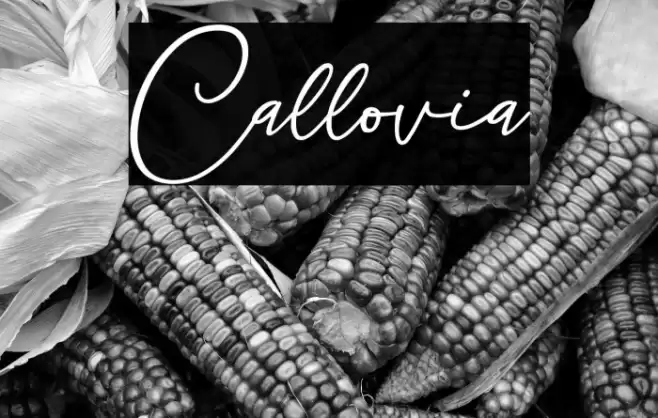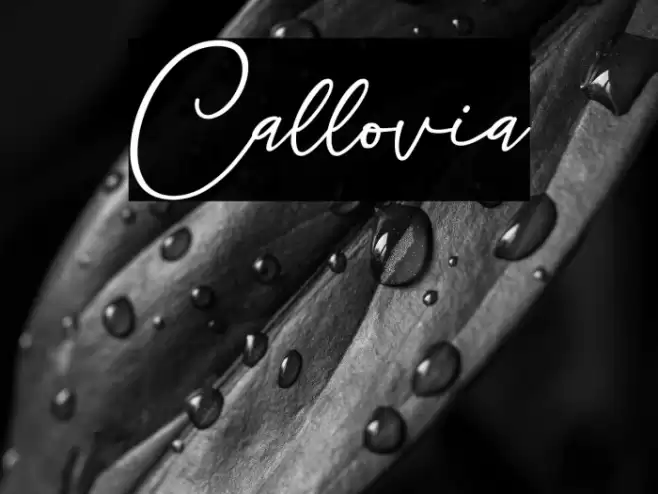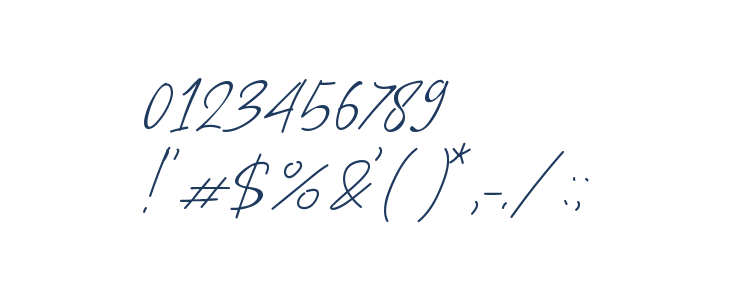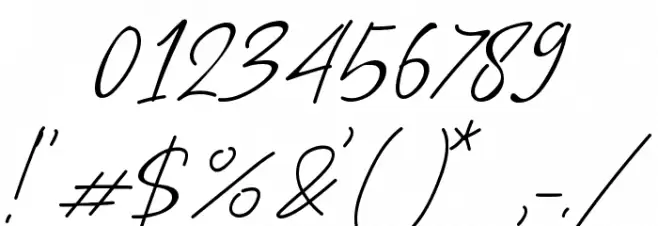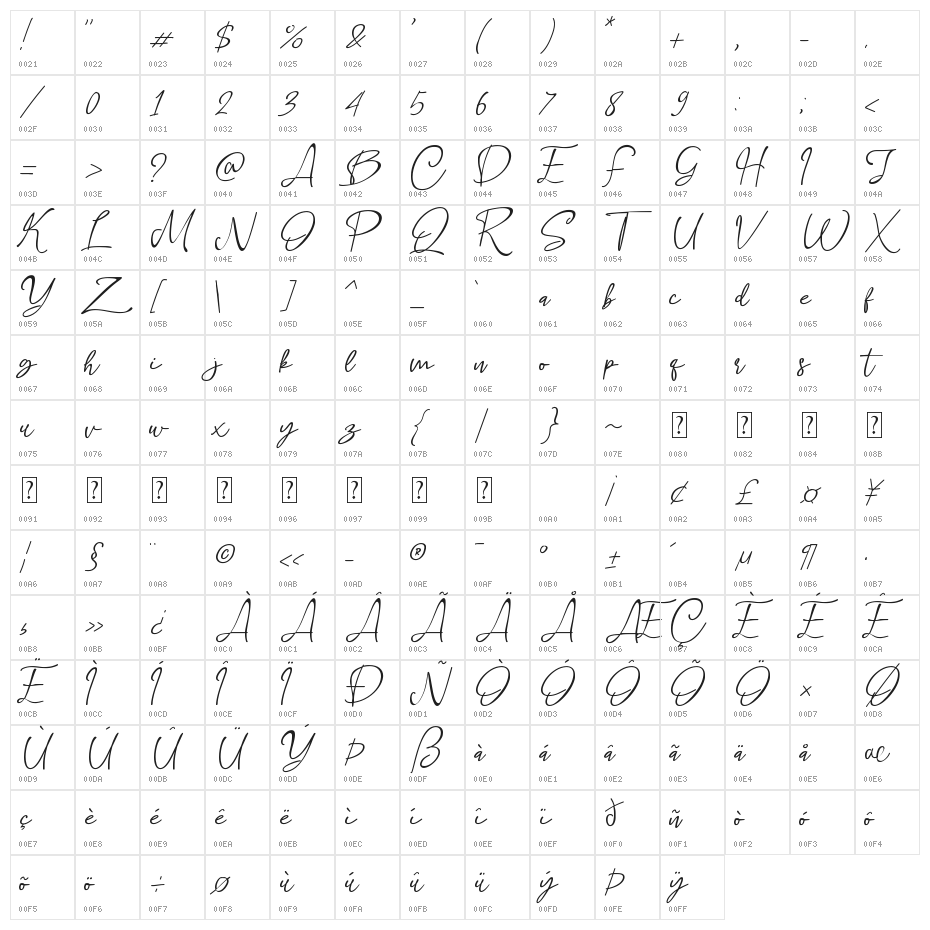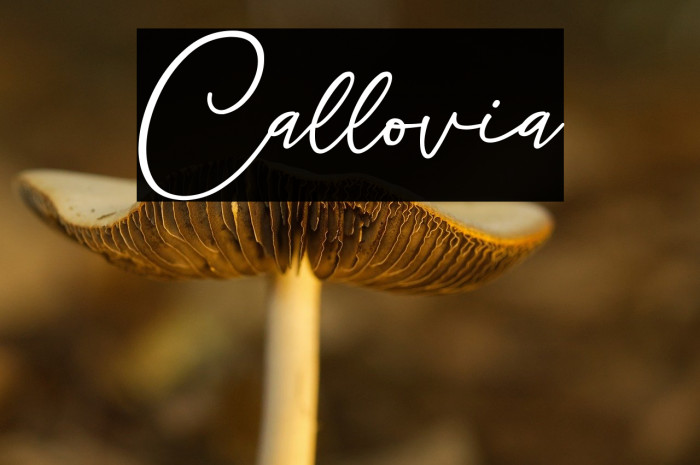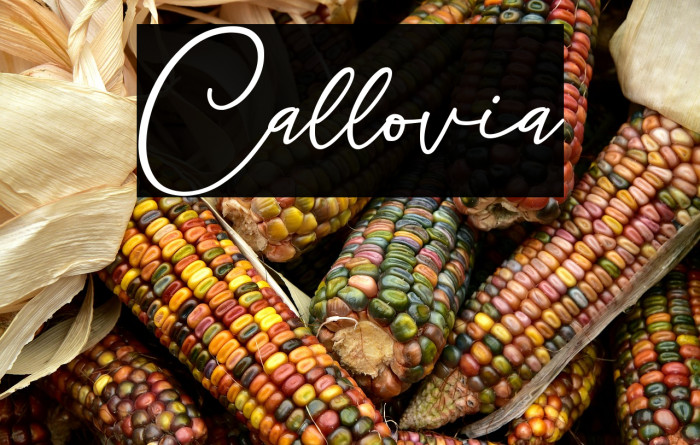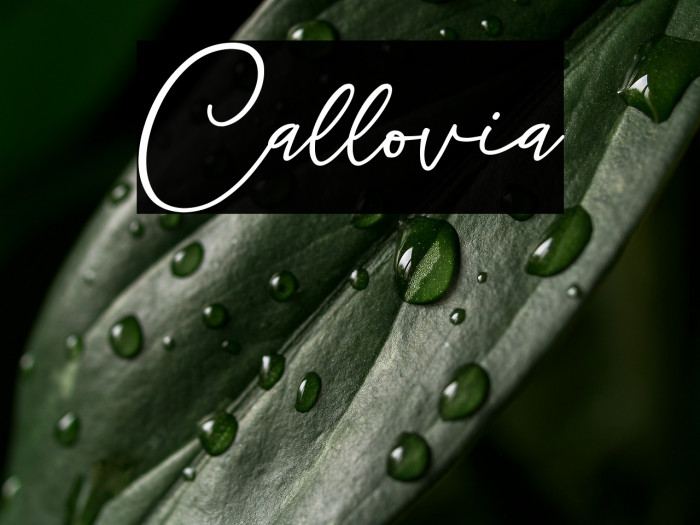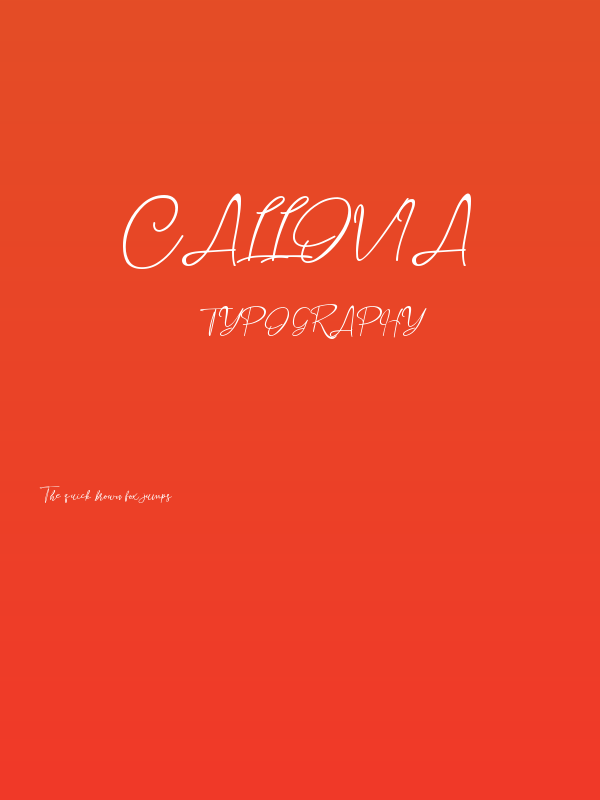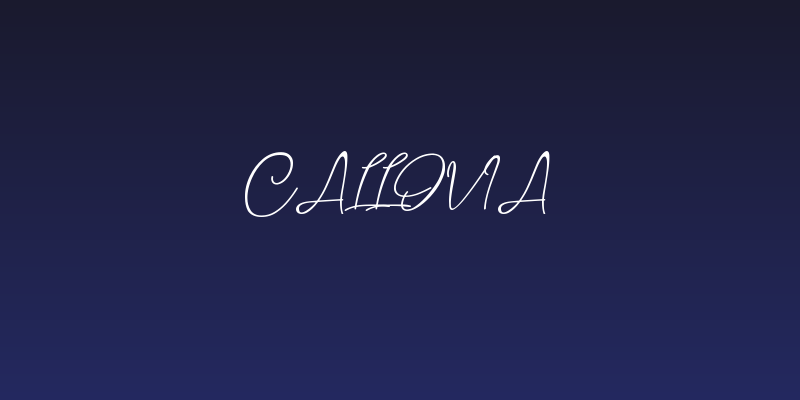
Callovia Font
Callovia Description
This font features a flowing, cursive style with elegant, sweeping lines that give it a handwritten appearance. The uppercase letters are tall and slender, with distinctive loops and curves that add a touch of sophistication. The lowercase letters maintain a consistent flow, with smooth connections between characters, enhancing the script's fluidity. Numbers and special characters are designed to match the overall aesthetic, providing a cohesive look. The font's graceful and artistic nature makes it suitable for projects that require a personal or creative touch.
A flowing, cursive font with elegant, sweeping lines and a handwritten appearance from Regular fonts.
- Proposed Projects: Ideal for wedding invitations, greeting cards, personal branding, and artistic projects.
- Overall Style: Elegant, Artistic
- Use Case: Logos, Invitations, Decorative text